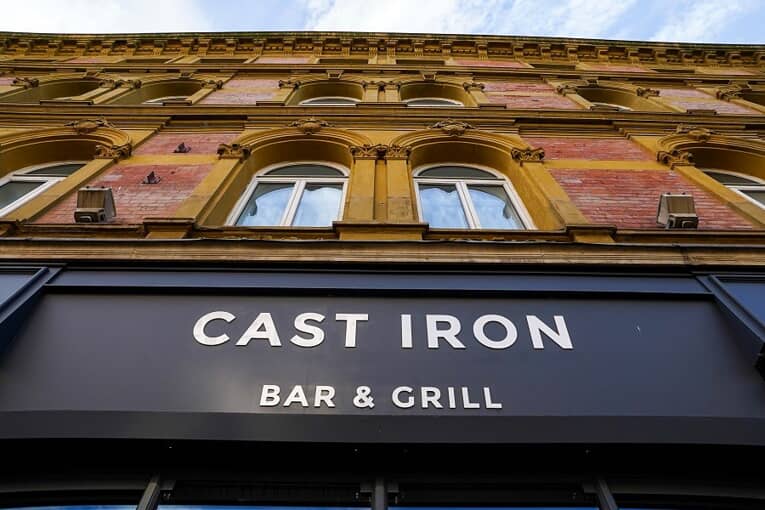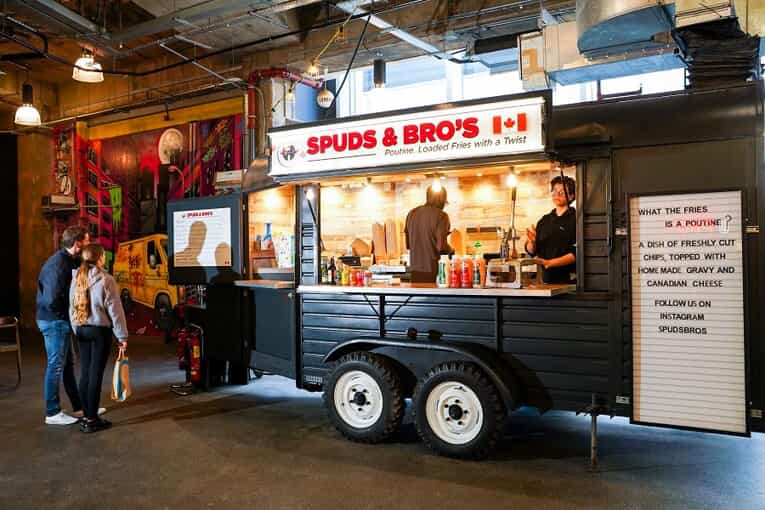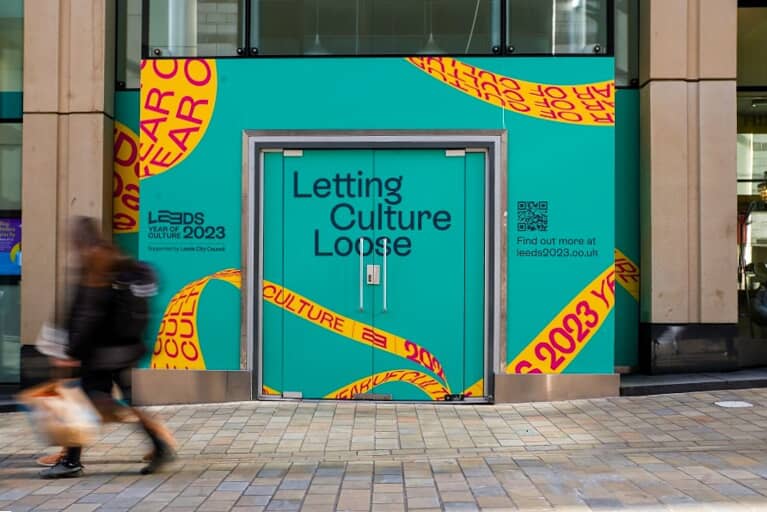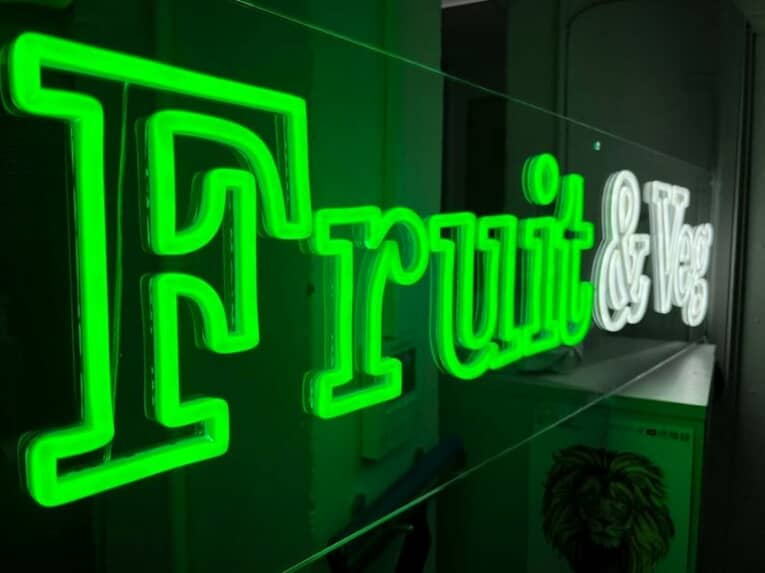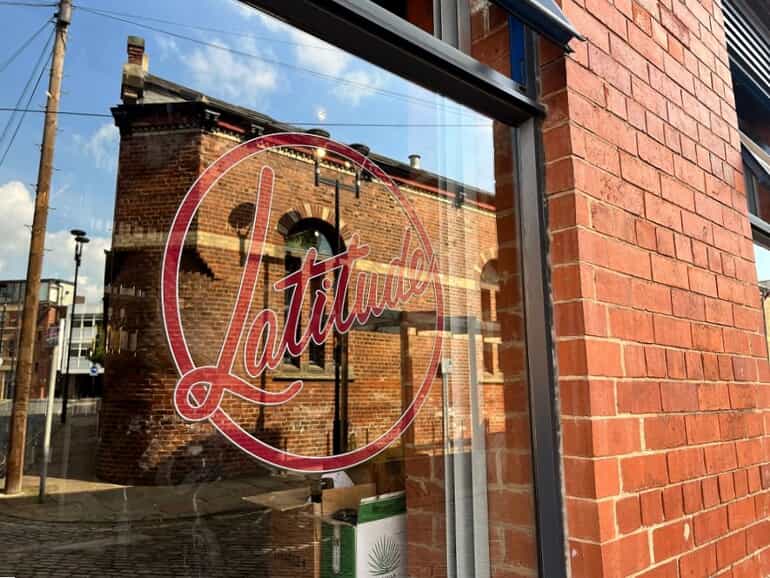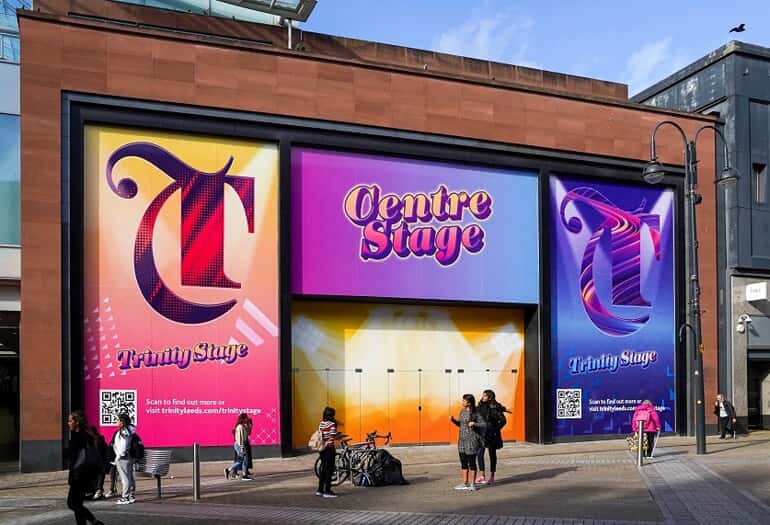
Choosing the right fonts for your signs
Typography can make a world of difference for signs. With the right font choice, you can successfully convey your brand’s personality, capture attention and leave a lasting impression on your potential customers. Whether you’re an established entrepreneur or a brand-new business owner, understanding the power of typography in your signage could be the key to creating a memorable and impactful brand identity.
Why do fonts for signs matter?
• Fonts convey the personality and tone of your brand
• The right font choice ensures your signs are legible and easy to understand
• Impactful fonts help you stand out and grab the attention of passersby
• Fonts that resonate with your target audience can help establish a stronger connection
Here's more about some of the most popular different types of typography you see in signage, and if they could be the right choice for your business:
Classic serif fonts
Classic serif fonts, like Times New Roman, Georgia and Garamond, have truly stood the test of time. Serif fonts are often seen in printed media, such as newspaper headlines, books and professional documents. They’re characterised by traditional styling and some subtle decorative flourishes. With a timeless, traditional appeal, they’re a great choice for many professional services – especially those that need to convey a sense of trust, expertise or authority, like law firms or financial businesses.
• Visual style: Formal, traditional, trustworthy
• Works for: Law firms, finance businesses and professional services
• Might not suit: Anyone aiming for a very contemporary or down-to-earth brand image
Modern sans serif fonts
In contrast to classic serif fonts, modern sans serif fonts like Helvetica, Futura and Arial have a clean, minimalist aesthetic that works perfectly for contemporary brands. These fonts are clear, simple and versatile, hinting at a business with a forward-thinking mindset. A sign in a modern sans serif font could suggest a fresh approach to problem-solving and a sense of approachability.
• Visual style: Clean, simple, modern
• Works for: Businesses aiming for an approachable, contemporary image
• Might not suit: Traditional or formal businesses, luxury brands, artisanal products
Elegant script fonts
Script fonts, like Pacifico and Brush Script, can add a touch of personality to signage. With flowing lines and intricate details, script fonts are particularly well-suited to businesses that want to convey a sense of individuality, creativity or luxury. Using script is a balancing act, and while its decorative appeal is eye-catching, script fonts should be used sparingly to keep things clear and legible.
• Visual style: Personalised, sophisticated, inviting
• Works for: Salons, spas, boutiques, handmade goods
• Might not suit: Corporate, tech and industrial services, government and public sector
Bold display fonts
Bold display fonts like Impact and Bebas Neue are the perfect choice for grabbing attention. These fonts are designed to be eye-catching and impactful, so they’re great for event promotions and retail signage when you need customers to really take notice. They’re especially effective when used to convey important information that needs to be seen quickly and look great when used for a single word or short statement.
• Visual style: Impactful, energetic, memorable
• Works for: Retail stores, restaurants and cafes, events, creative agencies
• Might not suit: High-end brands, corporate businesses
Fun and playful fonts
There are plenty of font options from all different font families that are ideal for businesses looking to create a sense of warmth, friendliness and fun. While handwritten fonts like the infamous Comic Sans have been mocked for being unprofessional, they’re actually a great choice for family and children’s materials due to their clarity, consistent spacing and visual appeal for younger readers. Retro and cartoon-inspired fonts like Lobster and Badaboom can also help you make a strong statement, adding vintage charm or a strong sense of fun.
• Visual style: Engaging, creative, unique
• Works for: Children’s brands, casual establishments, temporary messaging
• Might not suit: Professional settings
Choosing the right fonts for shop signs
For retail businesses and shops, choosing the right fonts for shop signs is key to attracting customers. High-impact signage with an appropriate font that conveys your brand’s personality will leave a positive impression on those who see it.
Here are some considerations for impactful fonts for business signage: